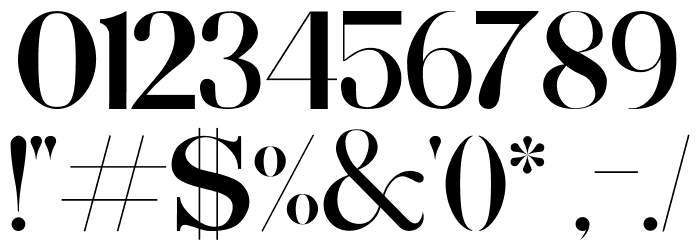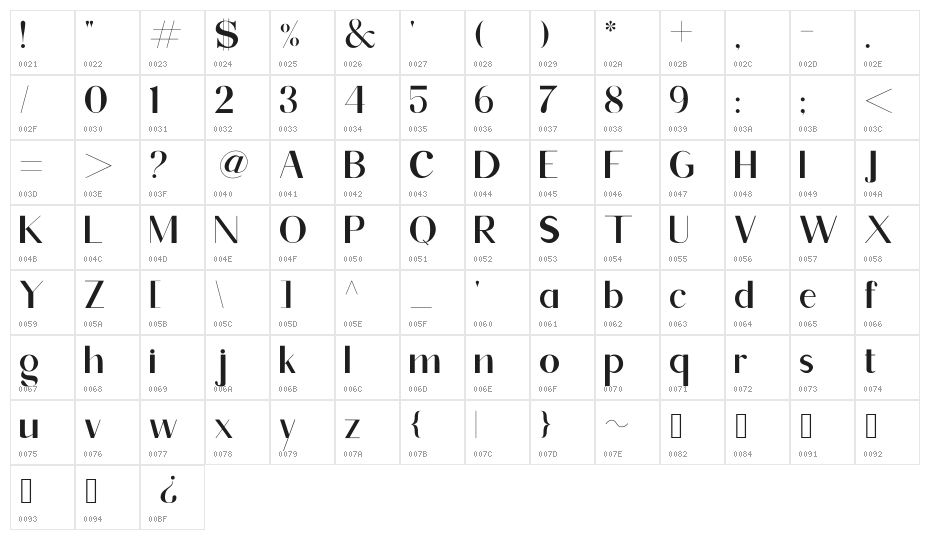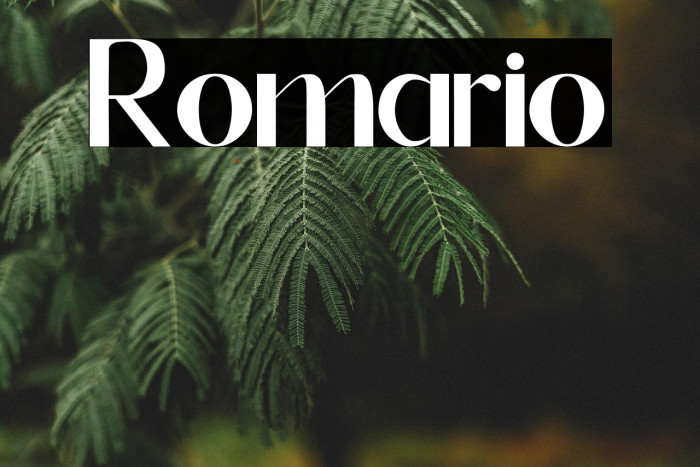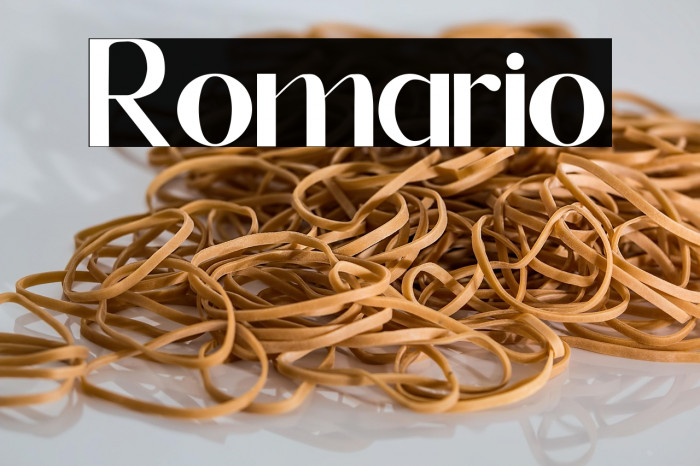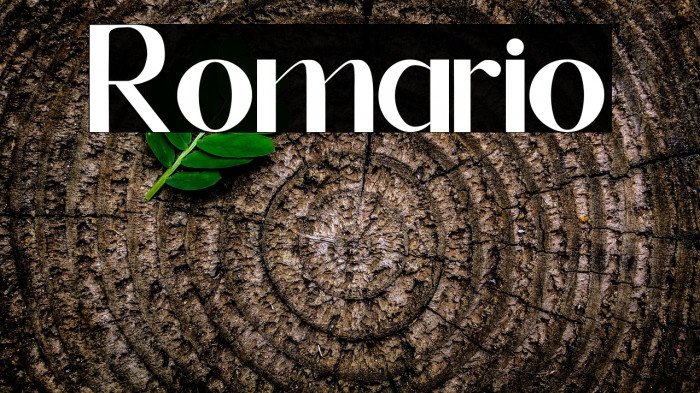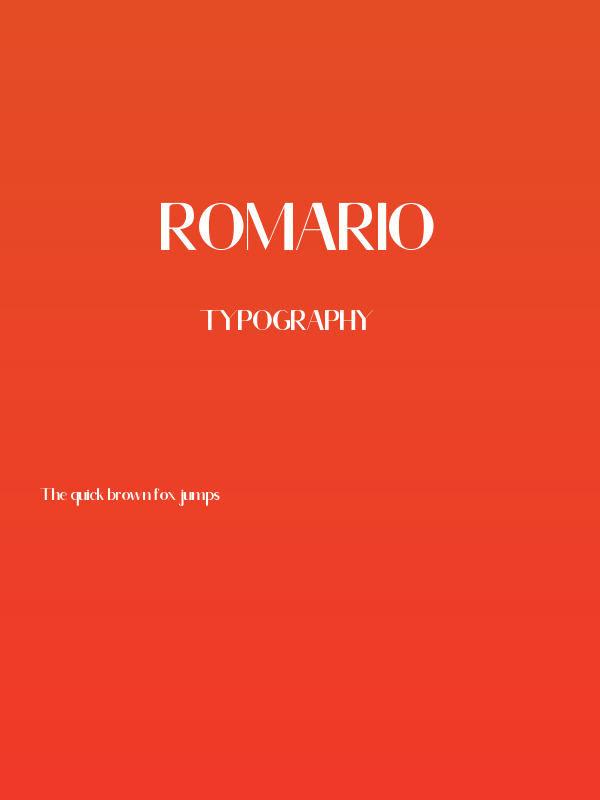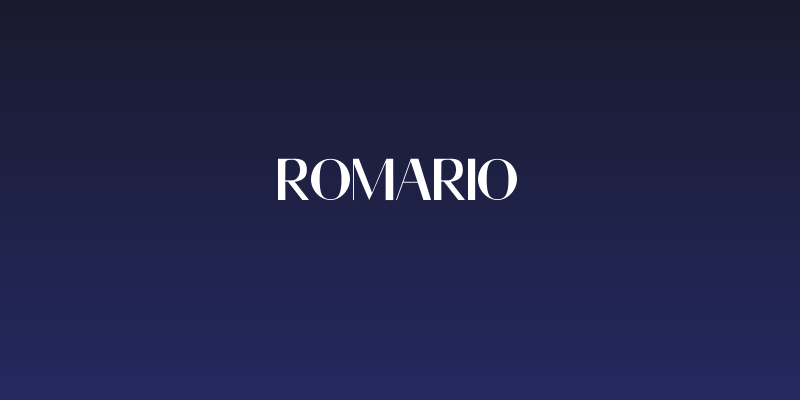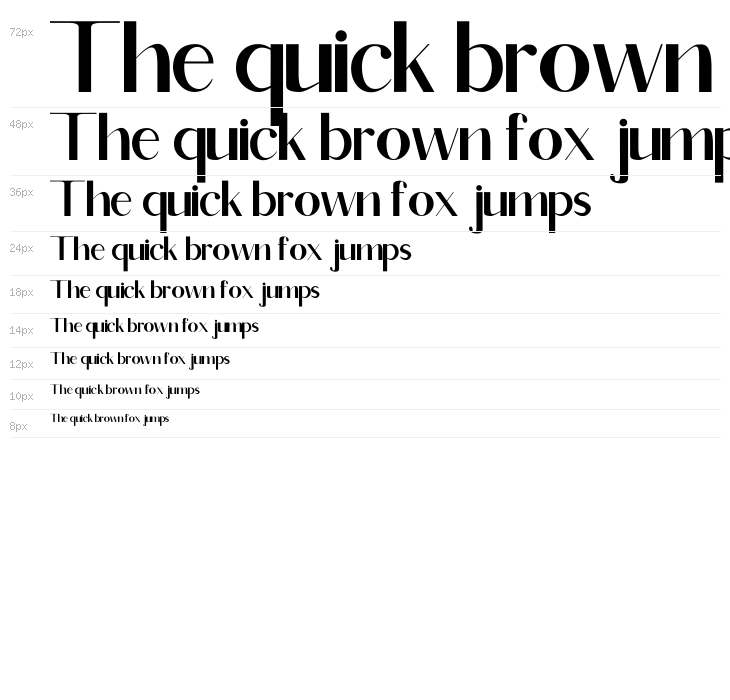
Romario Font
Romario Description
This font features a modern and stylish design with a high contrast between thick and thin strokes, giving it a distinctive and elegant appearance. The uppercase letters are bold and commanding, while the lowercase letters maintain a smooth and flowing form. The numerals are uniquely styled, adding a touch of sophistication. Special characters are designed with flair, making them stand out. This font is perfect for projects that require a contemporary and artistic touch, combining both functionality and aesthetic appeal.
| Proposed Projects | Ideal for branding, editorial design, fashion magazines, and luxury product packaging. |